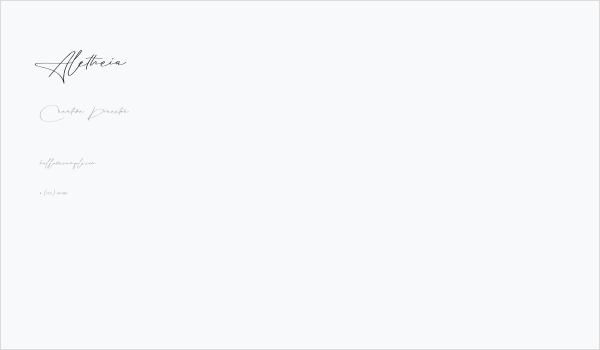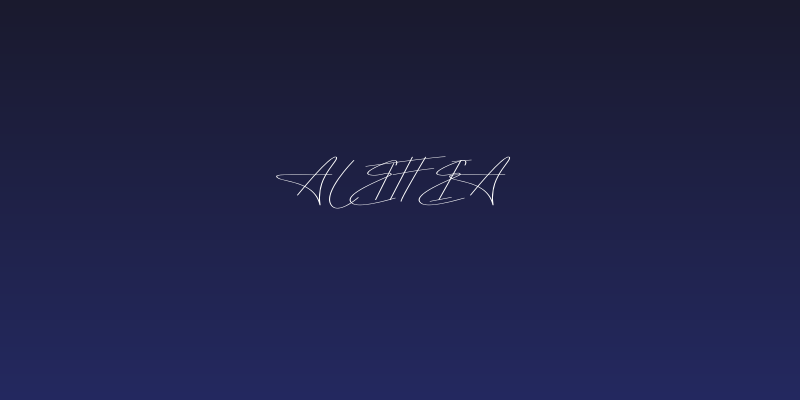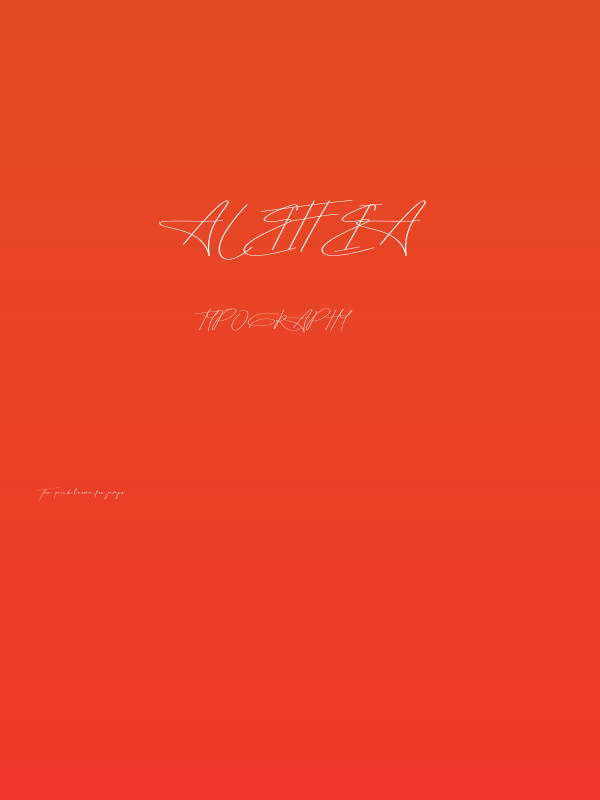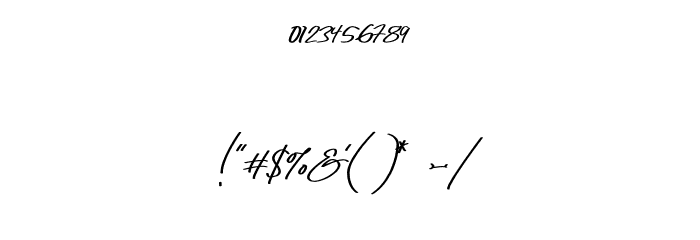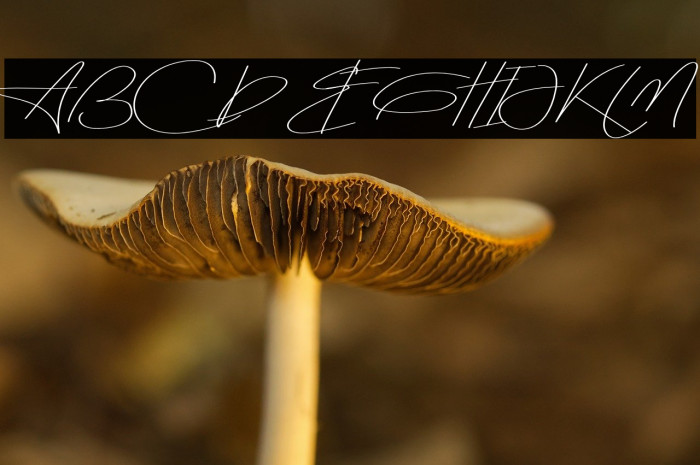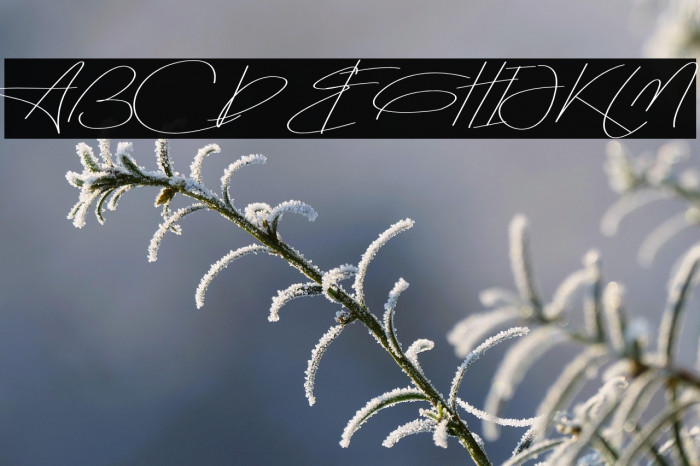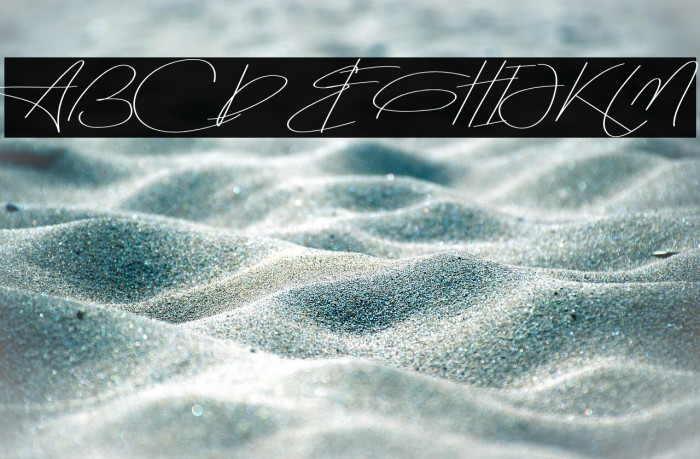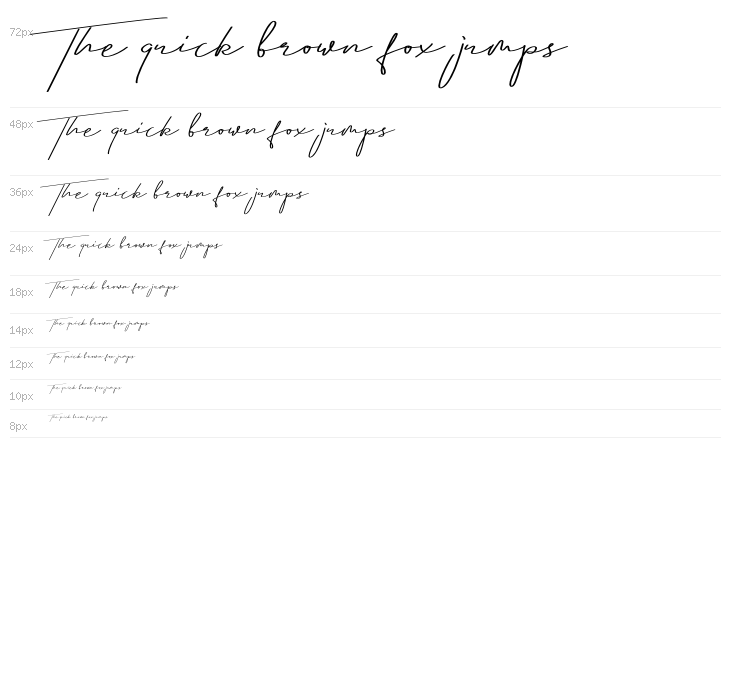
Aletheia Font
Aletheia Description
This font exudes a sense of elegance and fluidity, characterized by its cursive, handwritten style. The uppercase letters are elongated and gracefully looped, while the lowercase letters maintain a consistent flow with delicate connections. The numerals are slender and maintain the overall aesthetic of the script. Special characters are thoughtfully integrated, enhancing the font's versatility. The thin strokes and high contrast between thick and thin lines add to its sophisticated appearance, making it suitable for projects that require a touch of class and personalization.
| Proposed Projects | Ideal for wedding invitations, personal branding, elegant logos, and high-end product packaging. |